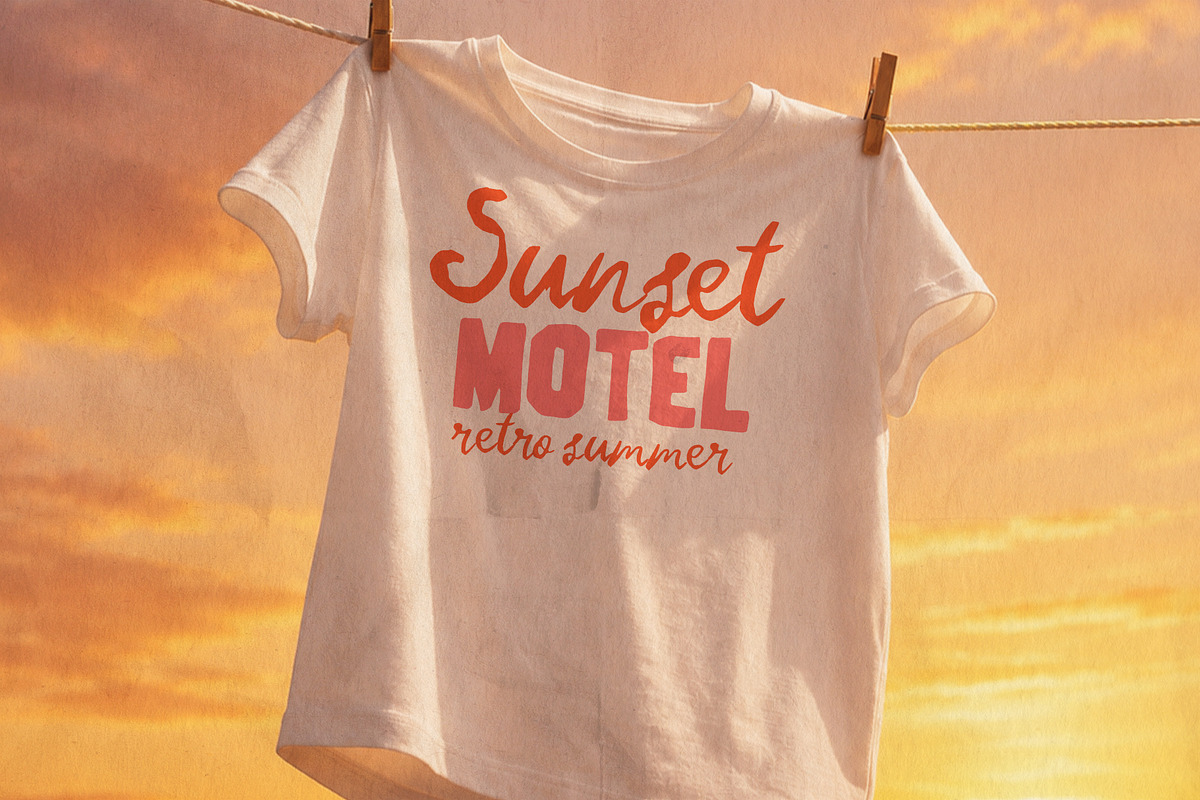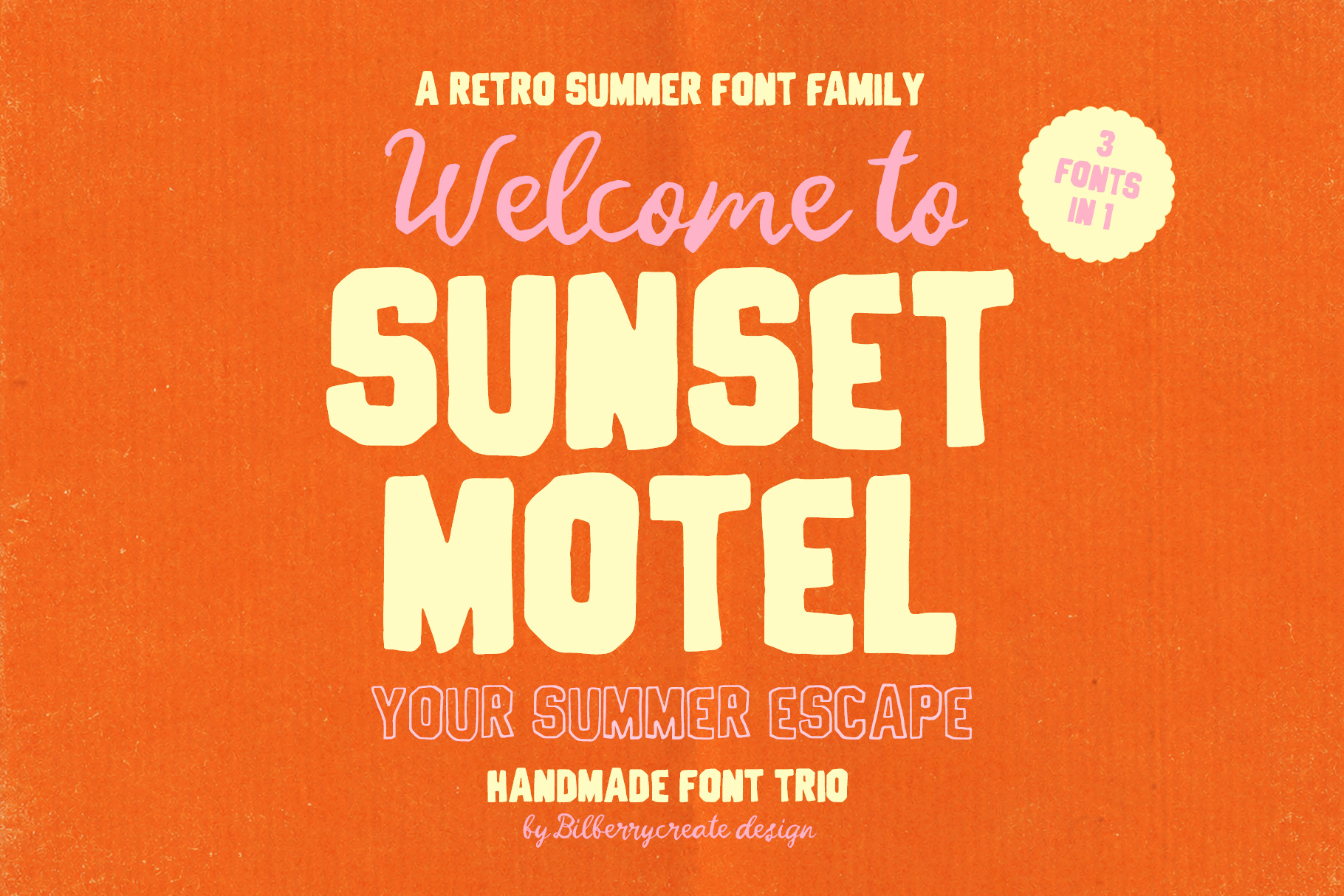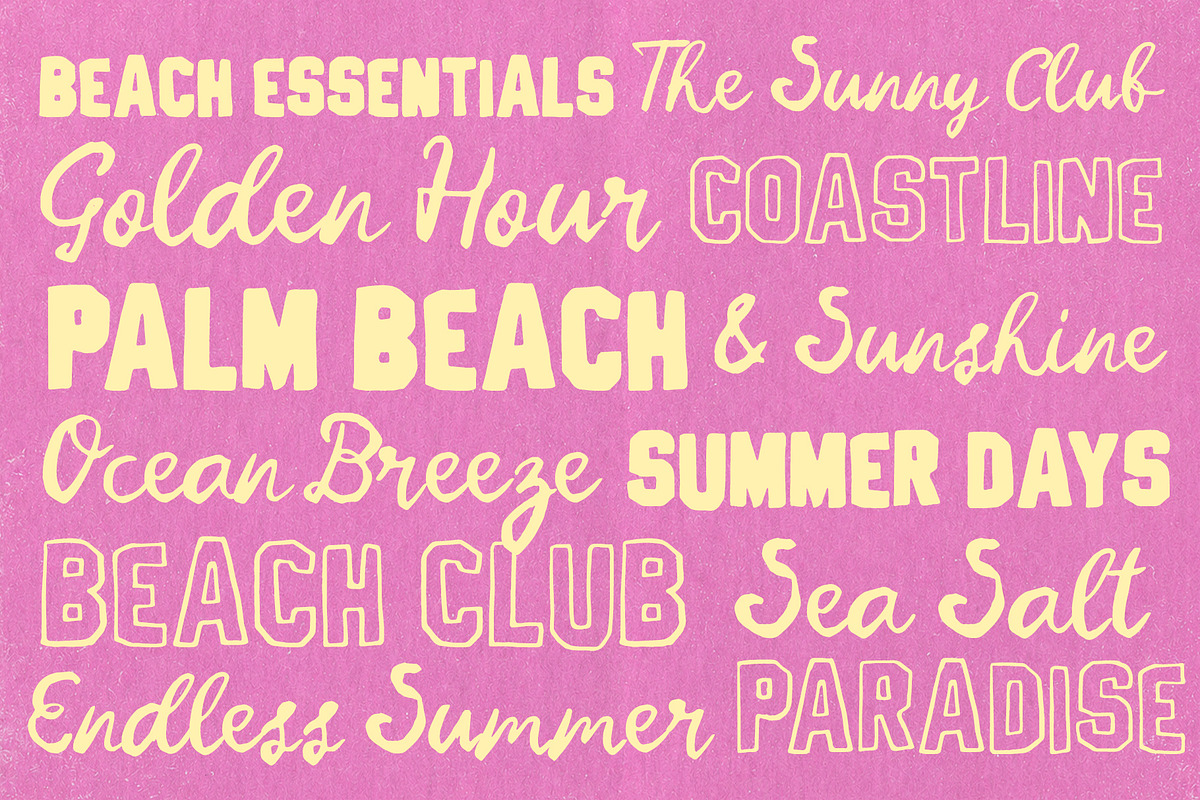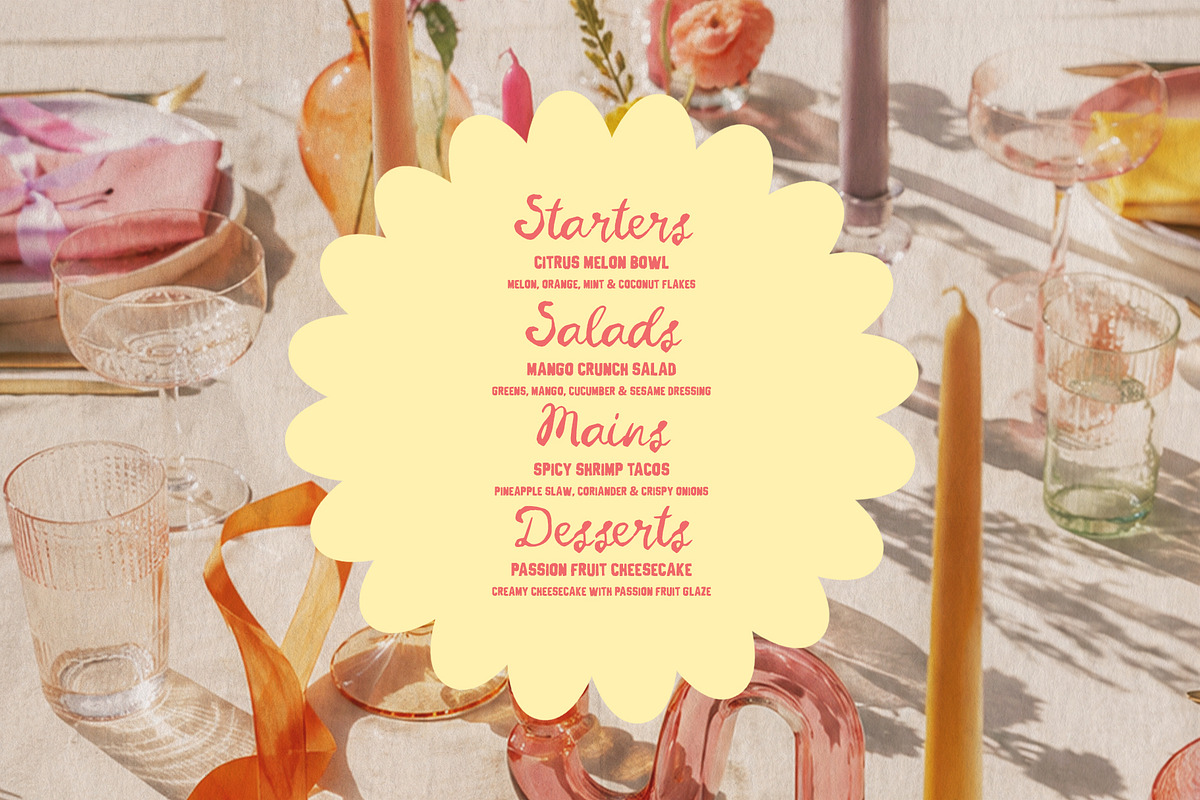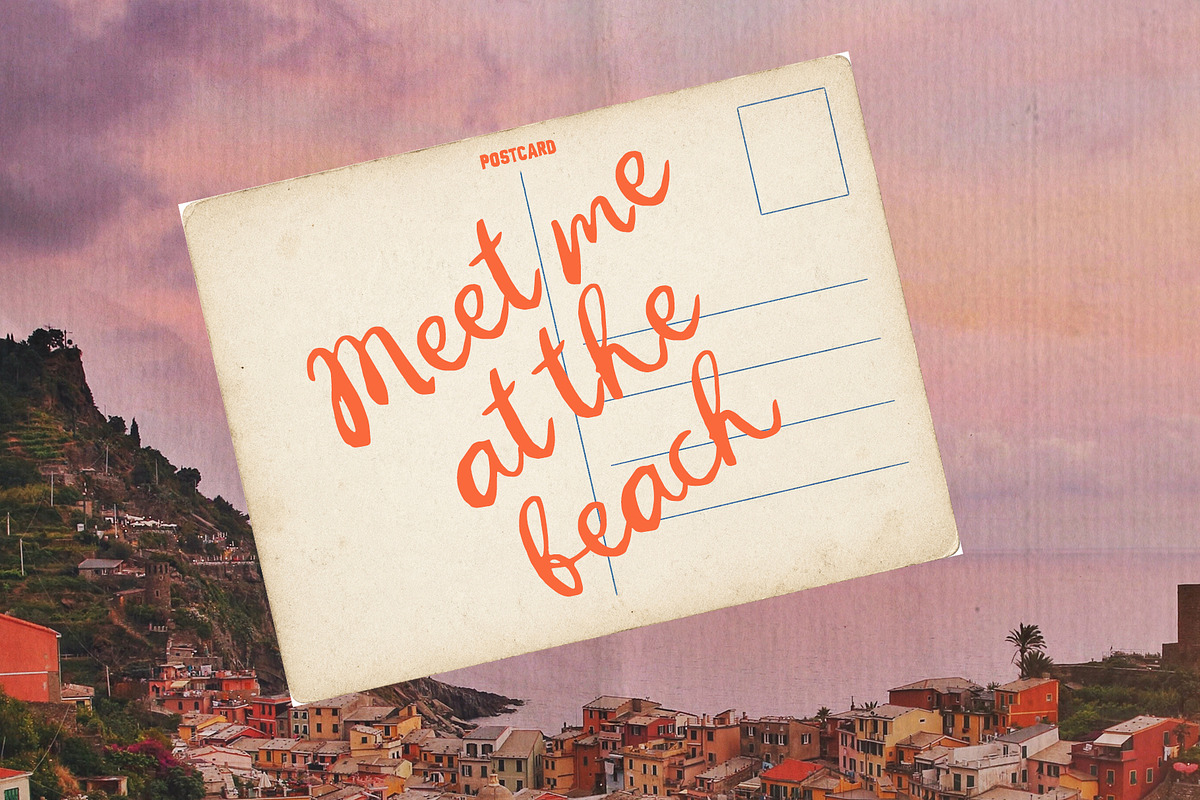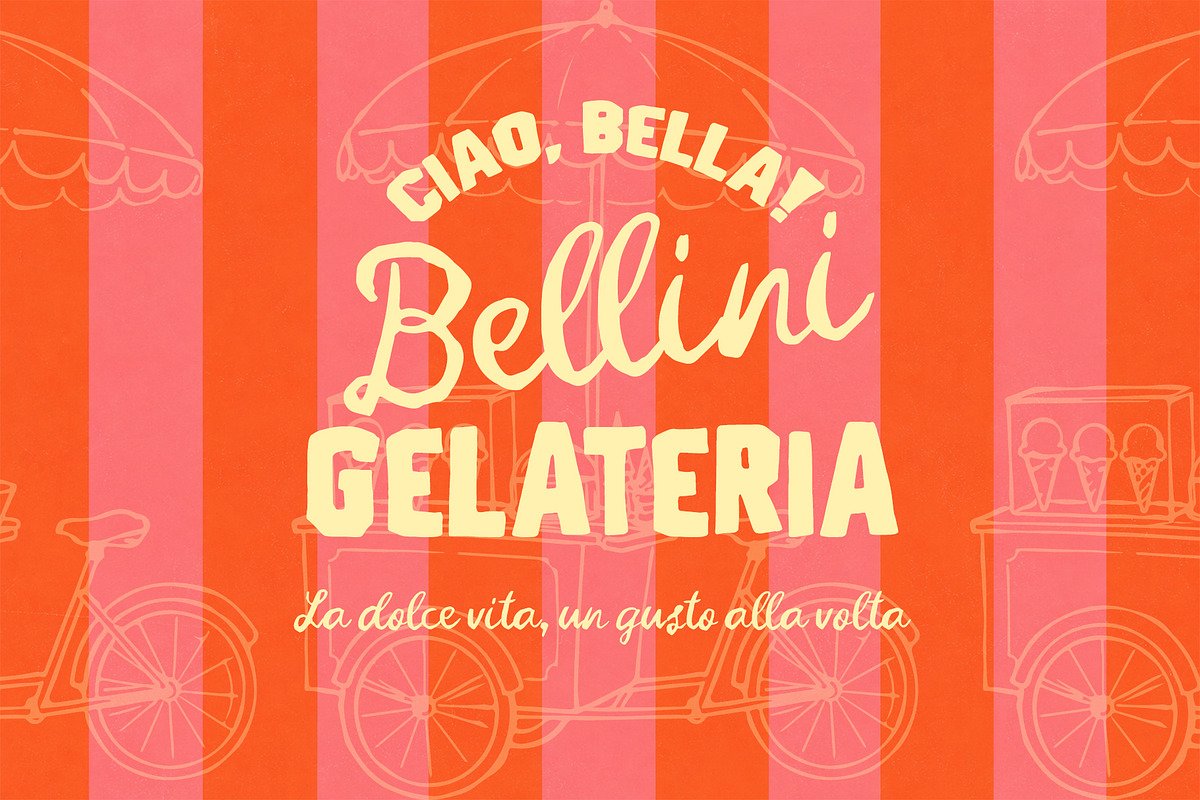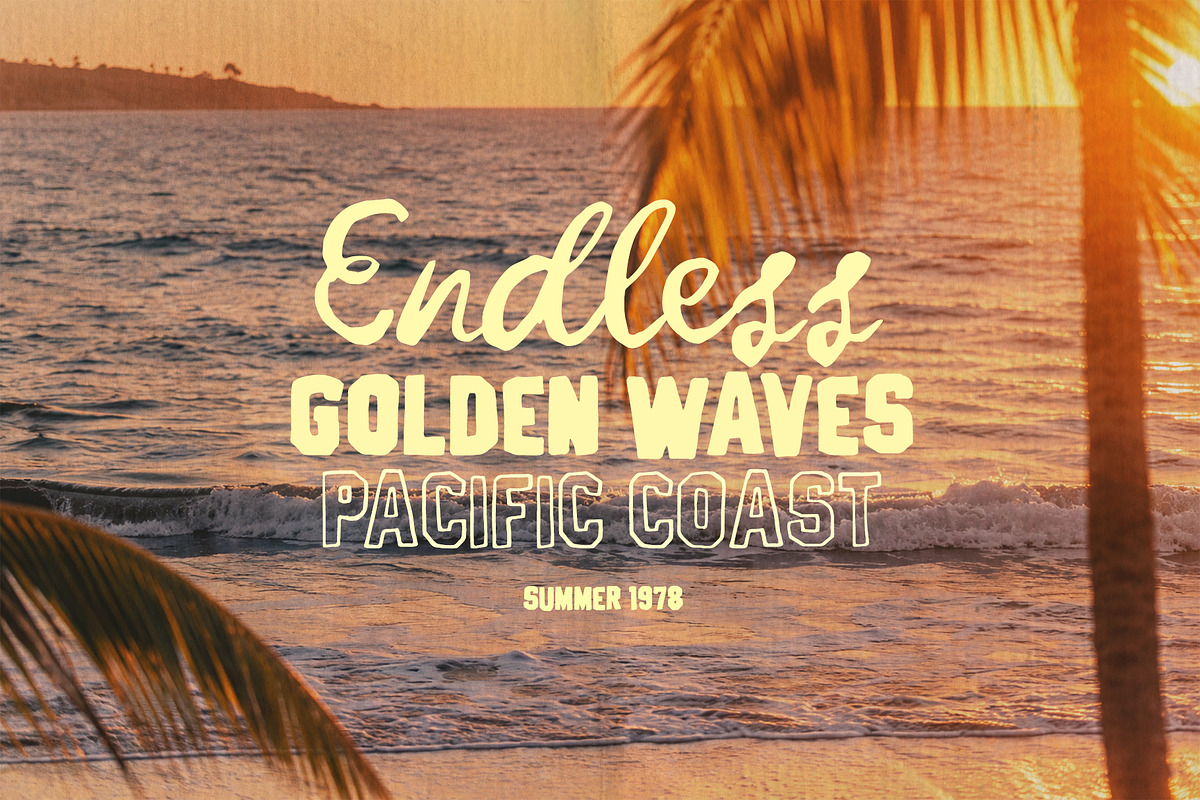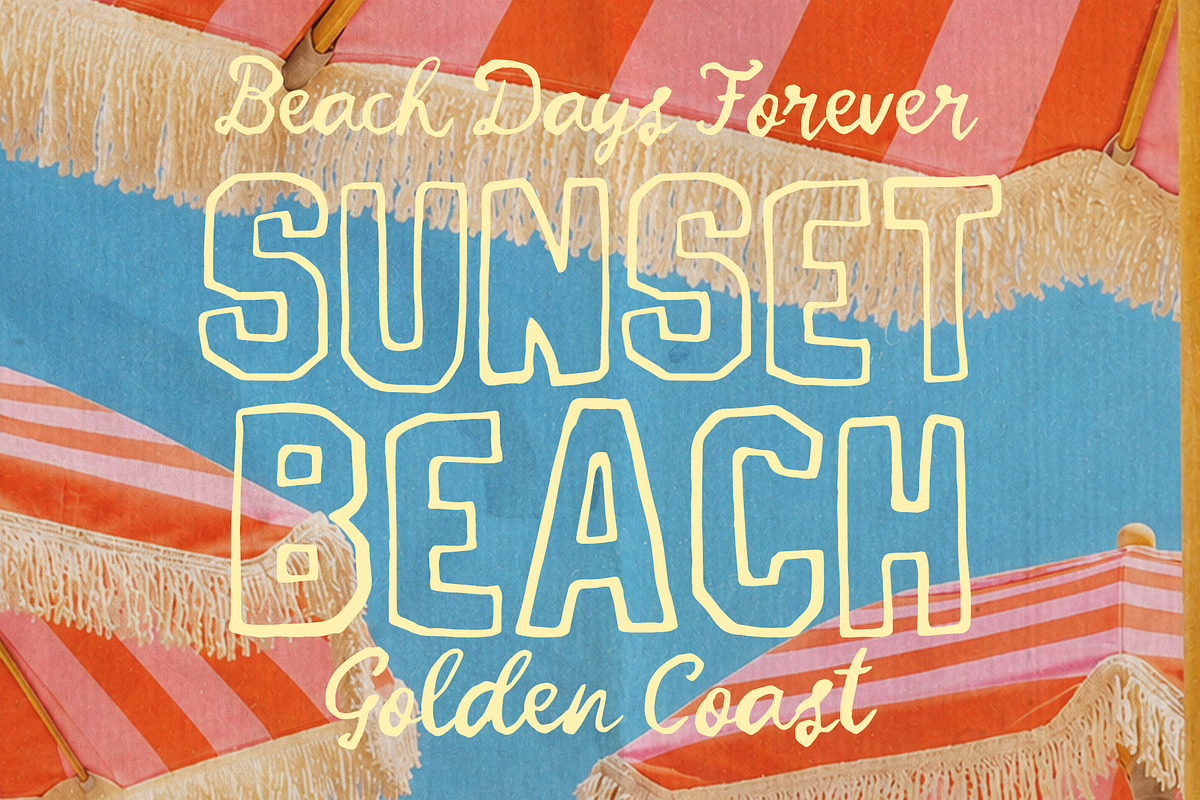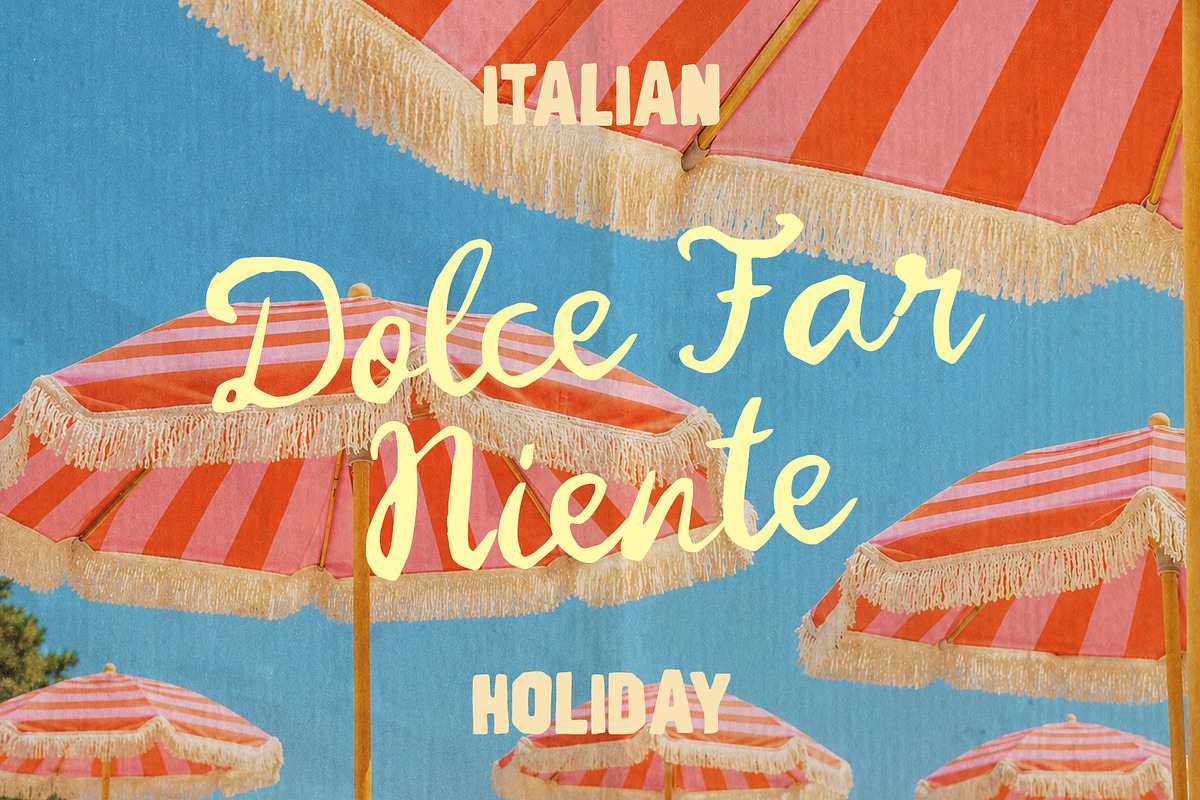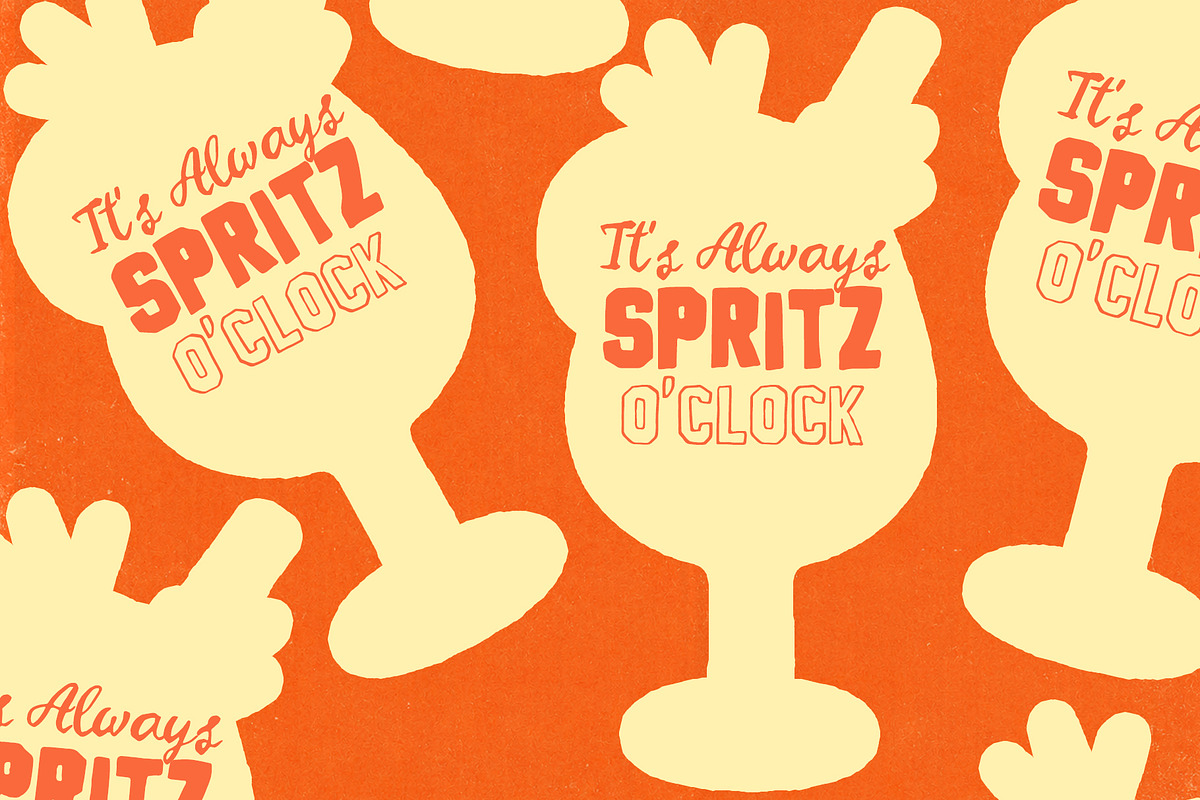
Sunset Motel Retro Summer Font Trio
Sunset Motel is a playful retro font trio inspired by sun-faded postcards, roadside motels, beach clubs, and long summer evenings.
The family combines three matching styles: a bold display font, a relaxed handwritten script, and a decorative outline font. Use them together to create expressive layouts with a cohesive vintage look.
Sunset Motel is perfect for logos, branding, packaging, posters, apparel, menus, invitations, social media, editorial design, and summer-themed projects.
The font family includes multilingual support for a wide range of Latin-based languages, along with punctuation and essential symbols. Multilingual support includes Basic Latin, Western European, Central European, and South Eastern European character sets, covering English, French, German, Spanish, Italian, Portuguese, Dutch, Polish, Czech, Slovak, Hungarian, Romanian, Croatian, Slovenian, Turkish, and many other Latin-based languages.
Bring a warm, nostalgic summer mood to your next project with Sunset Motel.